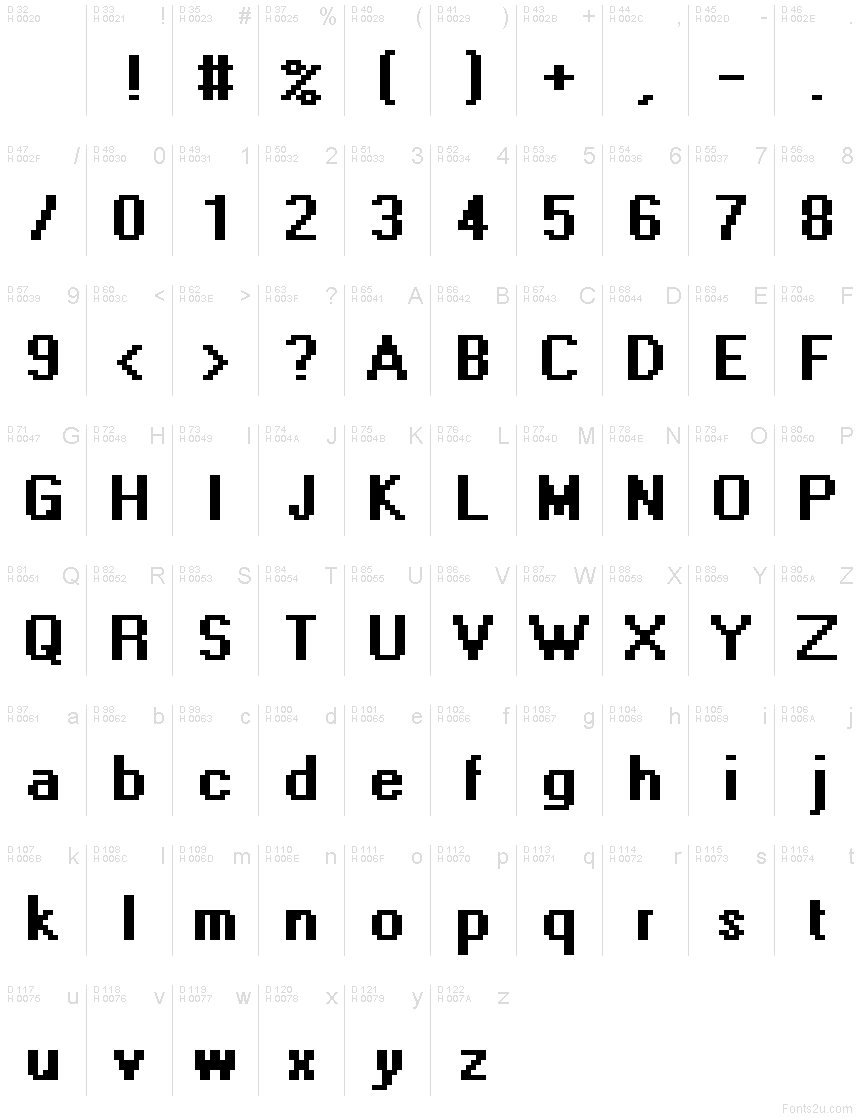
Windows Bold Regular
Windows Bold font by Fekete Tamas is a free bold pixelated bitmap display font. Built on a tight grid, it hits with chunky, monoline blocks, squared bowls, and stepped diagonals that read crisp and loud even at tiny sizes. The Windows family vibe comes through with sturdy rhythm and no anti‑alias fluff—just clean pixels that lock into place on screens.
Using Windows Bold, titles and UI labels in retro games, app splash screens, stream overlays, event posters, stickers, and techy social banners all snap into a nostalgic, 8‑bit groove. This free font shines when set at whole‑pixel increments; try sizes in multiples of 8 for the sharpest edges. Pair it with a light, modern sans for body copy to let the bitmap texture lead without overpowering the layout.